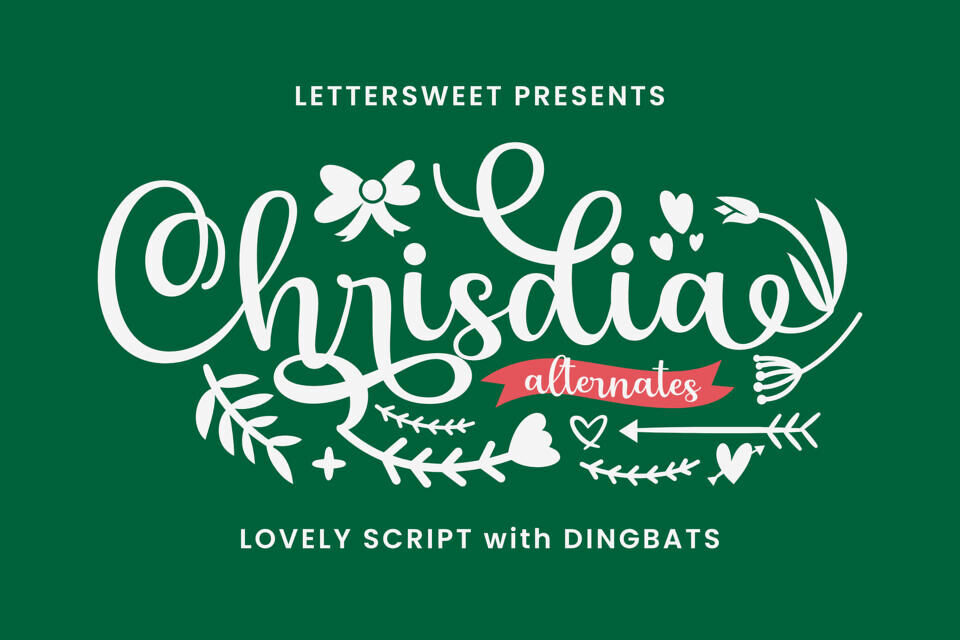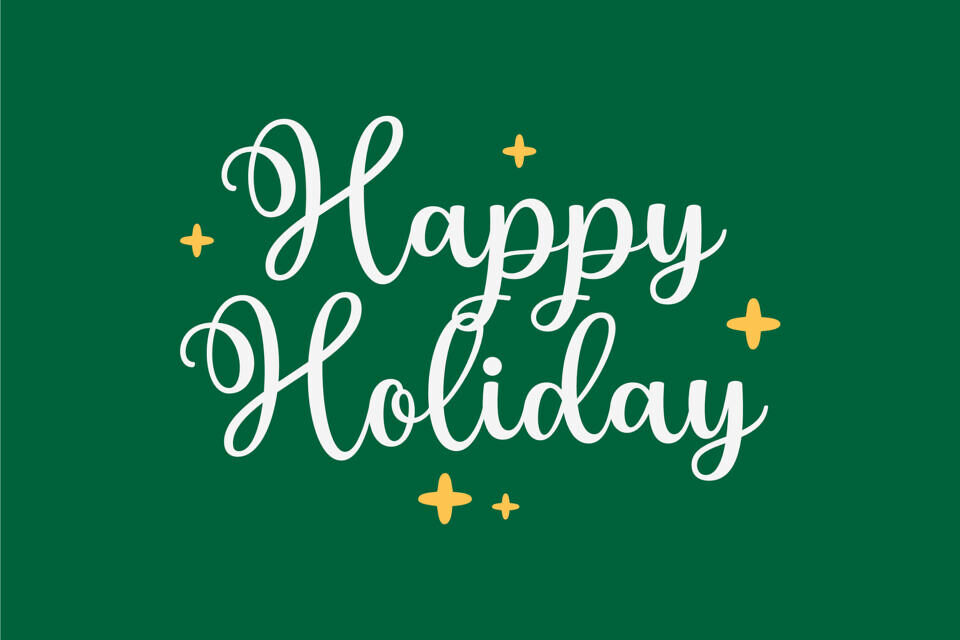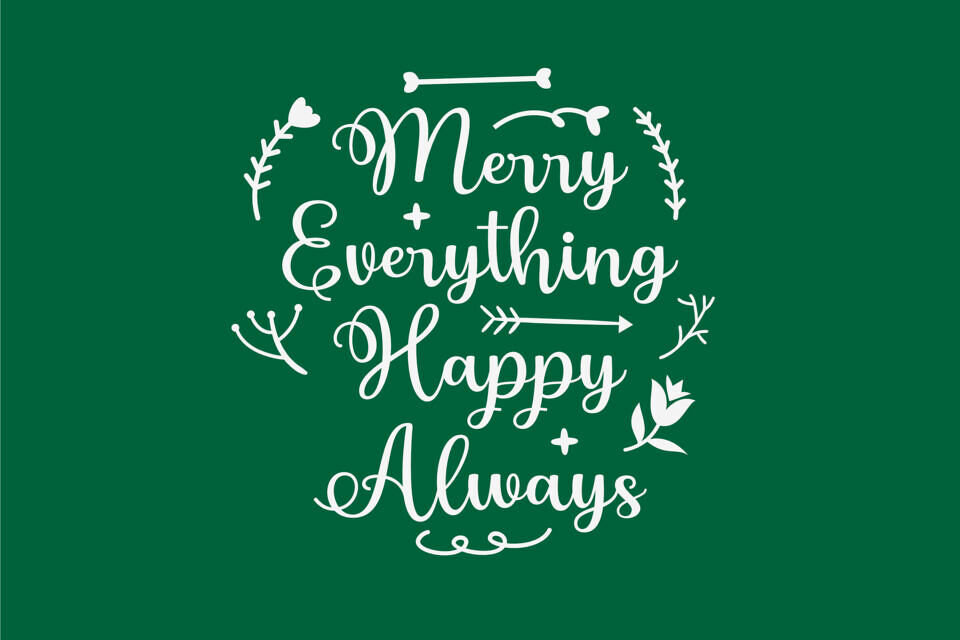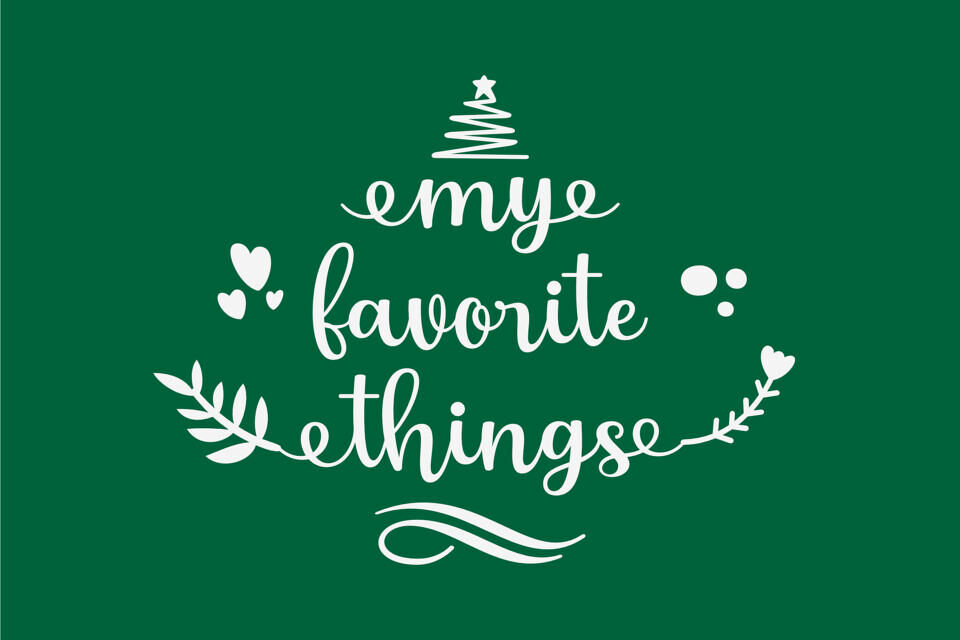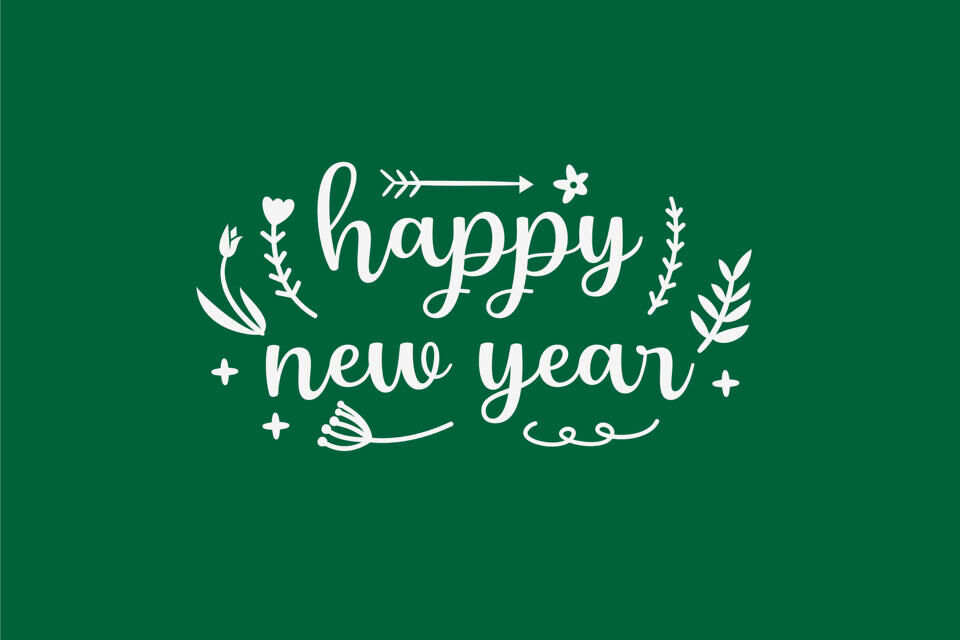
Chrisdia is a sweet script font that comes with beautiful stylistic alternates and a delightful set of dingbats. It brings a warm, playful, and lovely touch to any design project, making it perfect for designers and crafters who love a cute handwritten look.
This font is ideal for:
- Greeting cards & wedding invitations
- Christmas and holiday-themed designs
- Romantic quotes for social media
- Boutique logos, packaging & branding
- Scrapbooking, crafting, and DIY projects